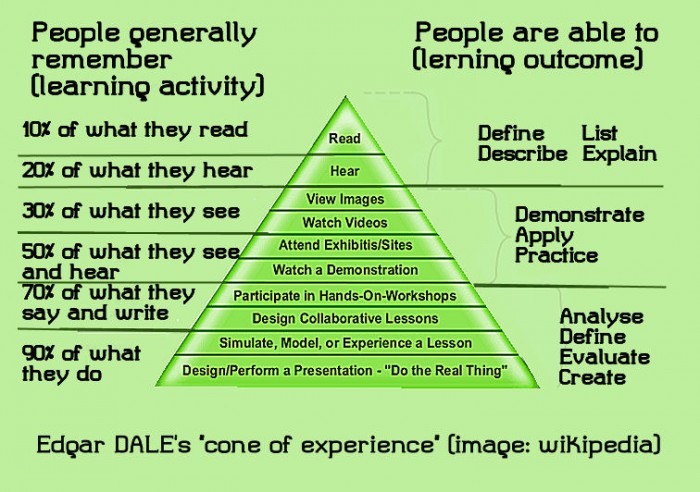
• Kerris = I keep learning. It replaces one of my computer's serif fonts.
of course it is supposed to be "learning" outcome ... what a typo!
"Kęrris" is Muscogee for "I keep learning" .
Love the serifs.
And the g.
Not bad. Have you tried copying the curve from "s" to turn it 90° and put it on top of "f"? And i think the "g" needs a little more work. Sometimes you need to cut off parts from other letters and try around a little bit to get the right shape...
For example the right half of "3" is pretty neat, so why not take it for "8"?  :)
Good readable design. Actually I think the bottom bowl of the 'g' is a bit too small ... this shows up more in the sample.
Like it. I especially like that it maintains a cool style but is still quite legible.
@Jack Lee: thanks; I like the sloped point to the serifs, and the g is interesting ;) but kix and p2p are right: the bowl needs adjustments. Thanks for the observation, I'll get to work on it.
@ kix: I see what you mean about 8, the straight inner line looks better than the curved one. I've also changed the f , you were right that the dip didn't suit.
@ Noah: thank you :) it is even better now that I have increased the general spacing ;) @ p2p and kix: I have inversed the bowl of the g, and increased the gap towards the eye to tidy up the overall shape.
I downloaded this on 3 different days; each dl had a slipped brick on the D & e right base outer curve. Awful, it ruined this xmas surprise to my nephew :'( Neither the fontstructor nor the preview showed this. Very puzzling because those edges were copy-paste jobs from the original O and o ...